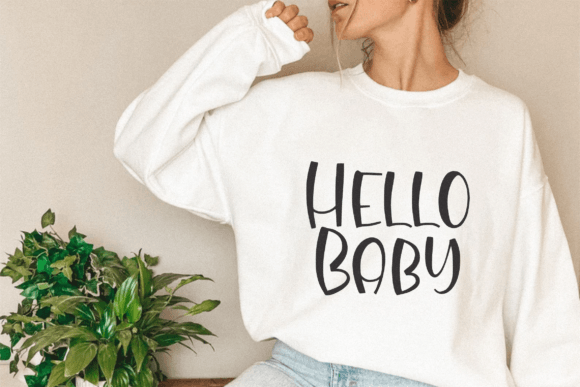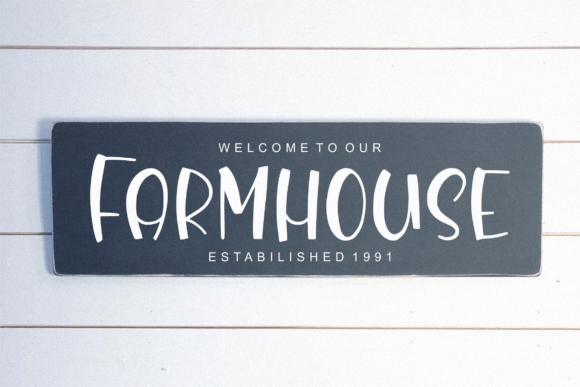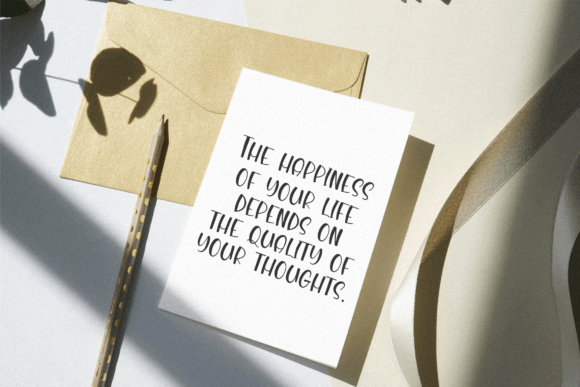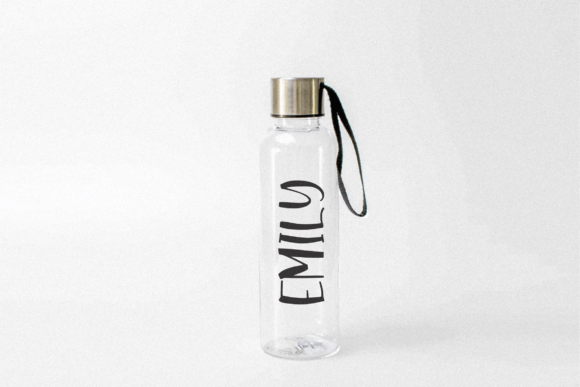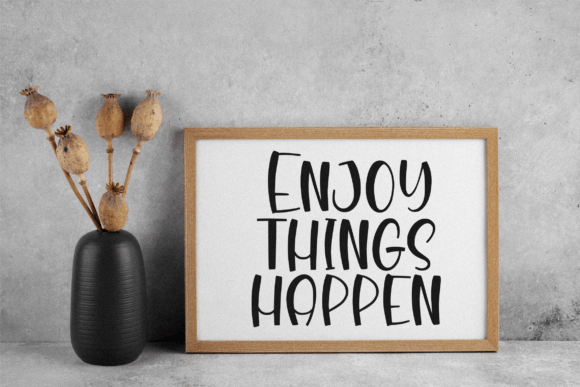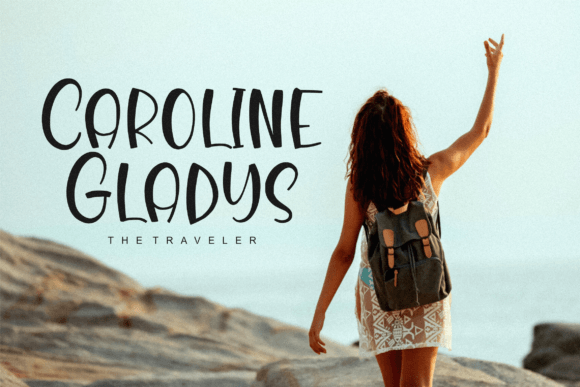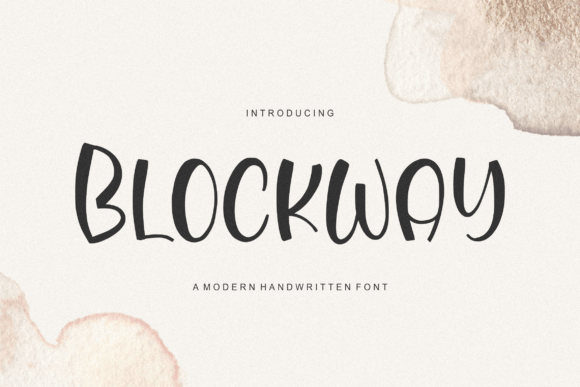
Introducing Blockway Font: The Fun and Friendly Handwritten Font You Need
Are you tired of using the same old fonts in your designs? Do you want to add a touch of personality and whimsy to your creations? Look no further than Blockway Font, a fun and friendly handwritten font that’s perfect for designers and crafters alike. In this article, we’ll take a closer look at Blockway Font, its features, and how it can elevate your designs.
What is Blockway Font?
Blockway Font is a modern, handwritten font that’s designed to bring a smile to your face. With its playful and approachable vibe, this font is perfect for a wide range of projects, from social media graphics and blog posts to invitations, posters, and more. Whether you’re a professional designer or a DIY crafter, Blockway Font is a great addition to your font collection.
Key Features of Blockway Font
- Handwritten style: Blockway Font has a warm, handwritten feel that’s perfect for adding a personal touch to your designs.
- Fun and friendly vibe: This font is designed to be playful and approachable, making it perfect for projects that require a lighthearted tone.
- Versatile: Blockway Font can be used for a wide range of projects, from digital designs to print materials.
- Easy to read: Despite its playful style, Blockway Font is easy to read, making it perfect for body text and headlines.
How to Use Blockway Font in Your Designs
Blockway Font is a versatile font that can be used in a variety of design projects. Here are a few ideas to get you started:
- Social media graphics: Use Blockway Font to create eye-catching social media graphics that showcase your brand’s personality.
- Blog posts: Add a touch of whimsy to your blog posts with Blockway Font, perfect for headings, subheadings, and body text.
- Invitations: Create custom invitations for parties, events, and more with Blockway Font.
- Posters: Use Blockway Font to create bold, eye-catching posters that grab attention.
Why Choose Blockway Font?
With so many fonts available, why choose Blockway Font? Here are a few reasons why this font stands out:
- Unique style: Blockway Font has a unique, handwritten style that’s sure to set your designs apart.
- Ease of use: This font is easy to use and pairs well with a variety of other fonts.
- High-quality: Blockway Font is a high-quality font that’s designed to look great in any design.
Tips for Pairing Blockway Font with Other Fonts
Pairing Blockway Font with other fonts can create a unique and visually appealing design. Here are a few tips for pairing Blockway Font with other fonts:
- Use a contrasting font: Pair Blockway Font with a contrasting font, such as a serif or sans-serif font, to create visual interest.
- Choose a font with a similar feel: Pair Blockway Font with a font that has a similar feel, such as a handwritten or script font.
- Experiment with font sizes: Experiment with different font sizes to create a visually appealing design.
| Font Name | Blockway Font |
| Author | qwrtypefoundry |